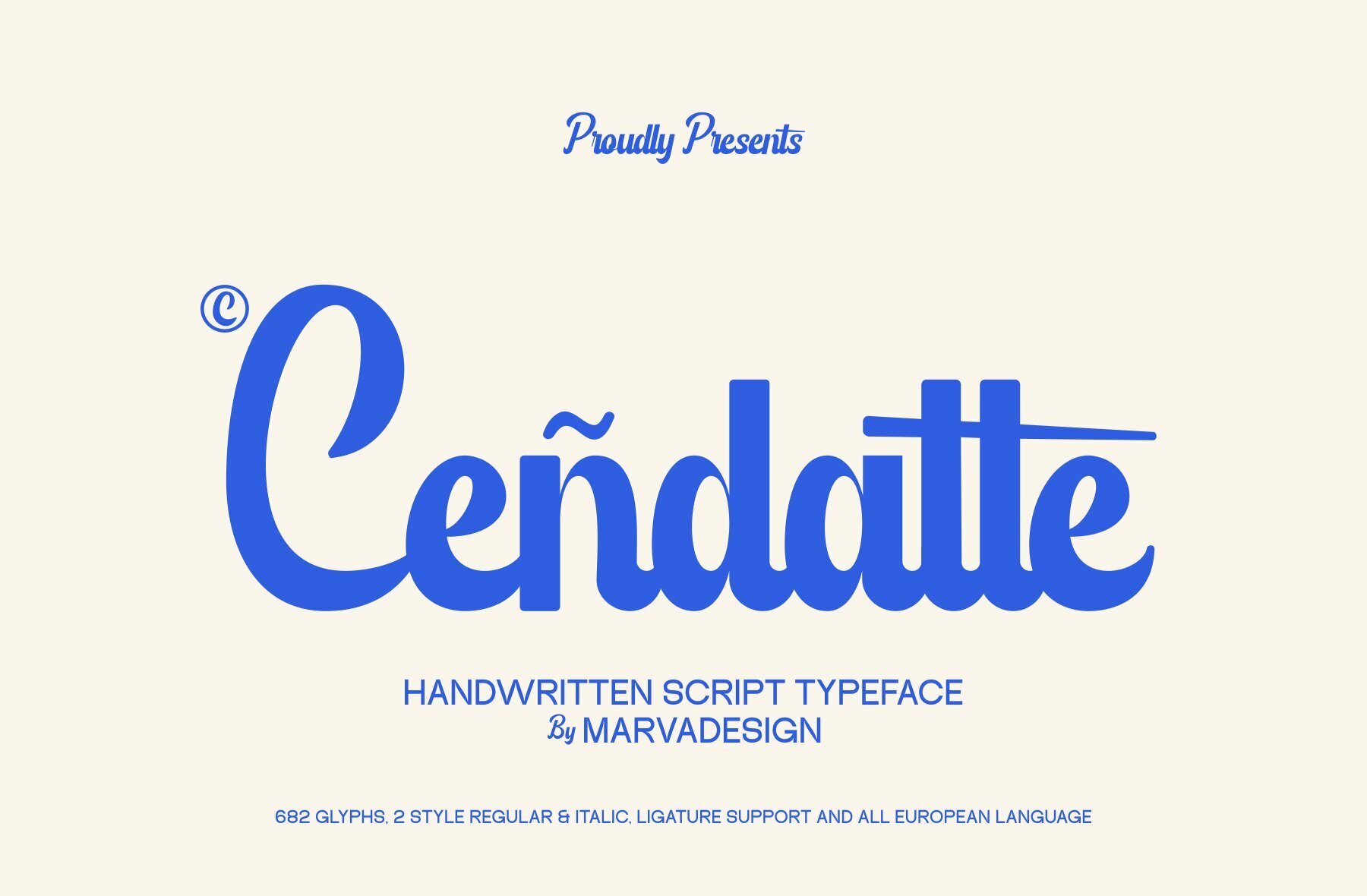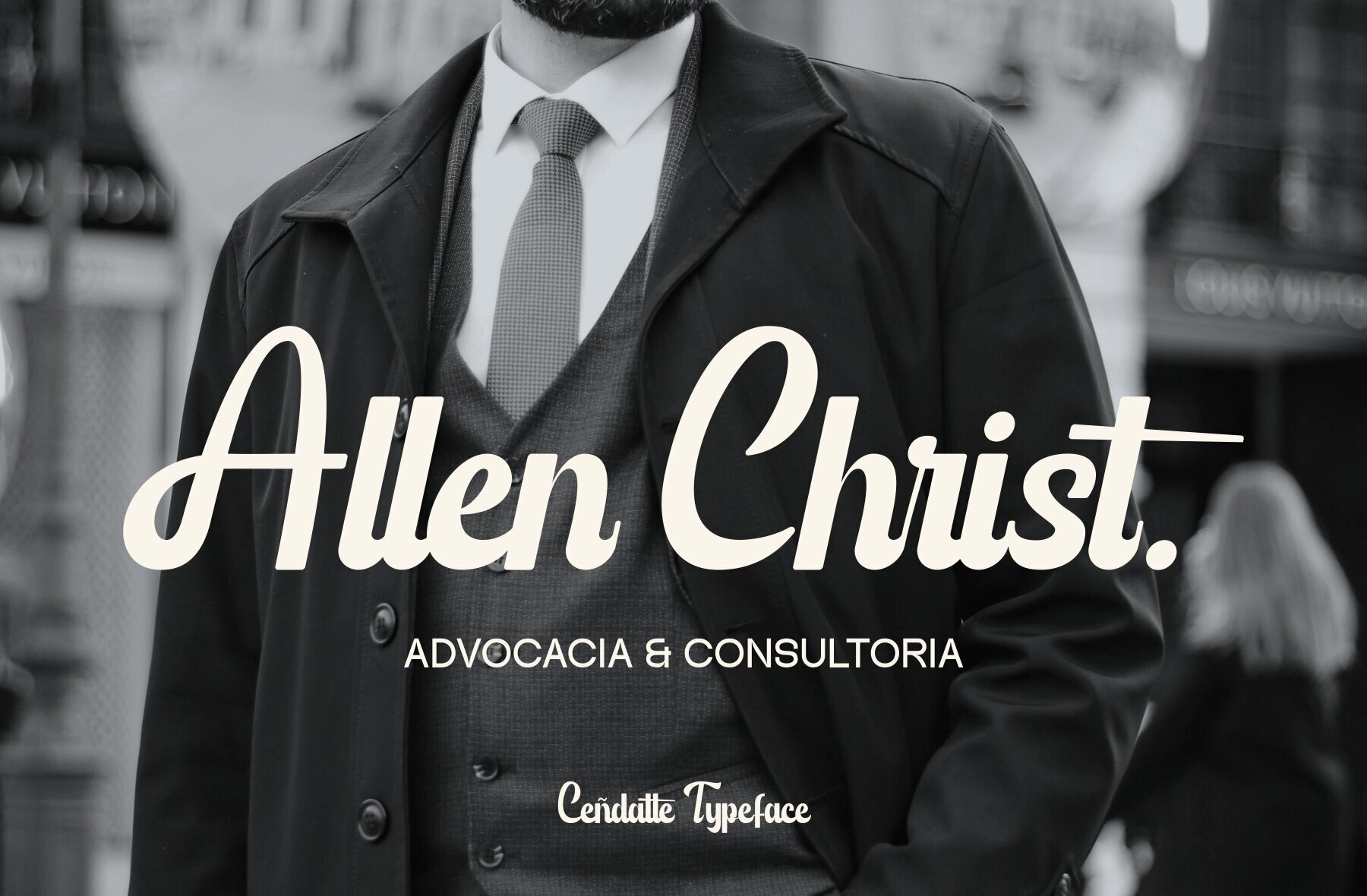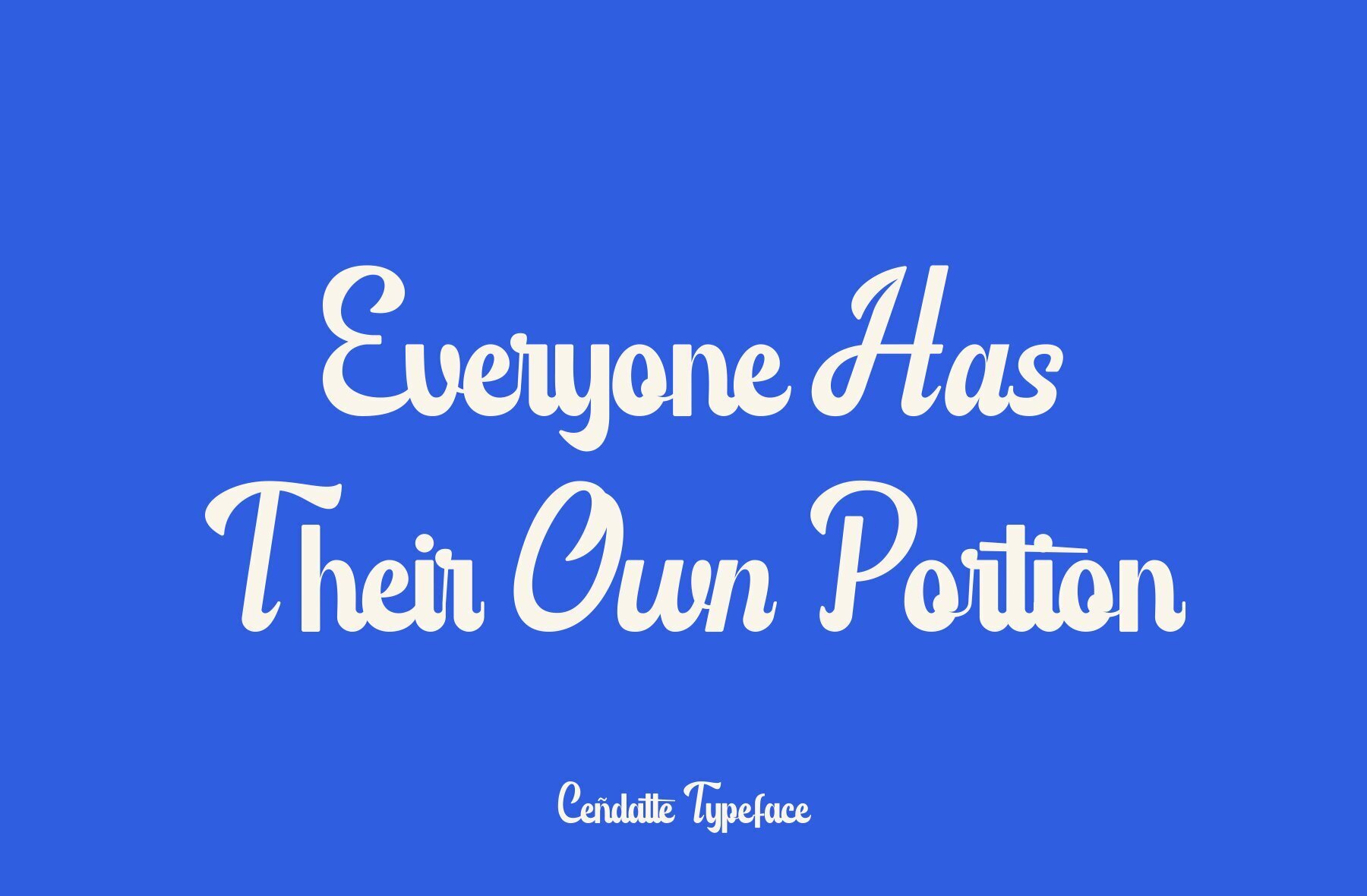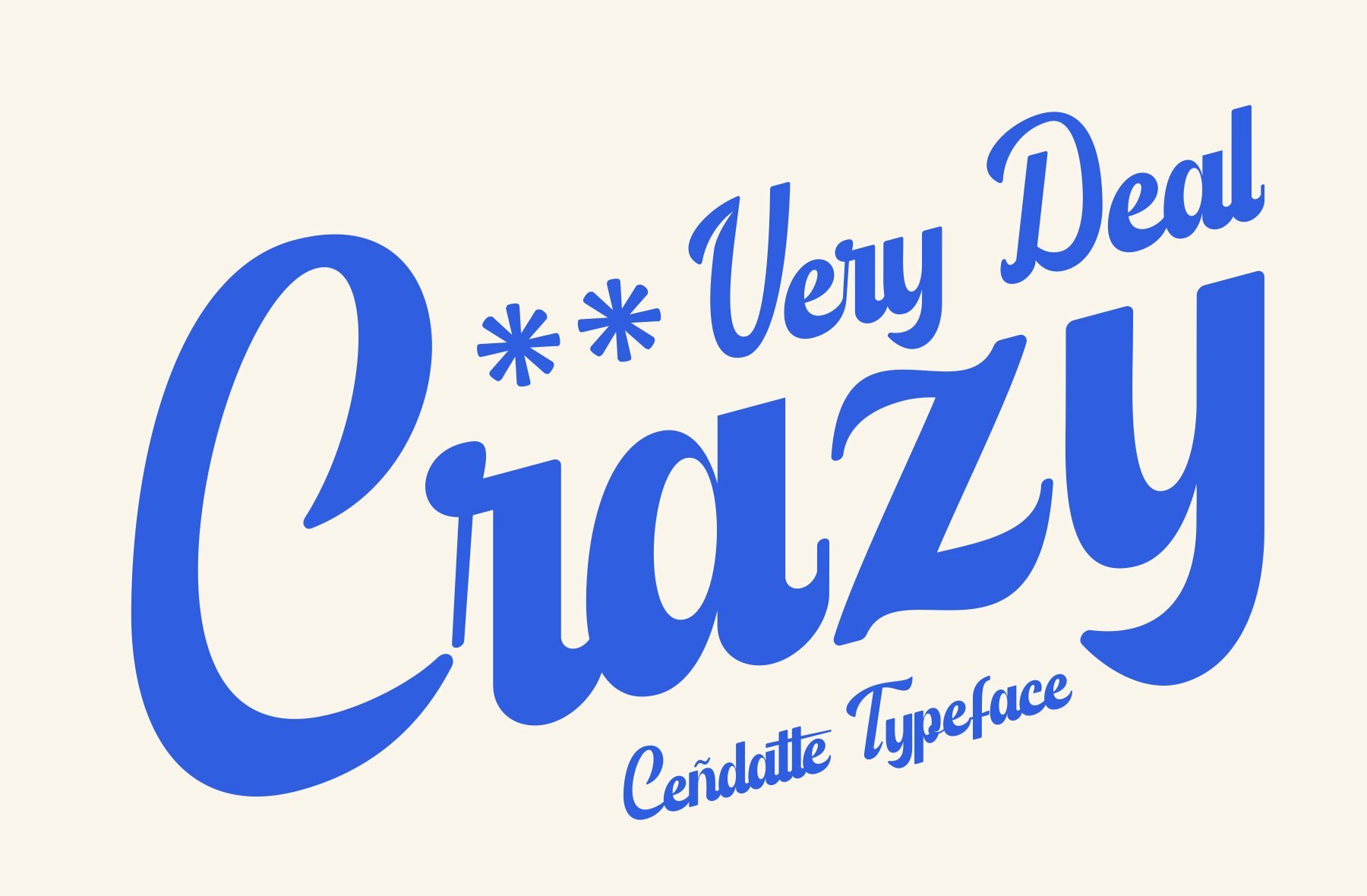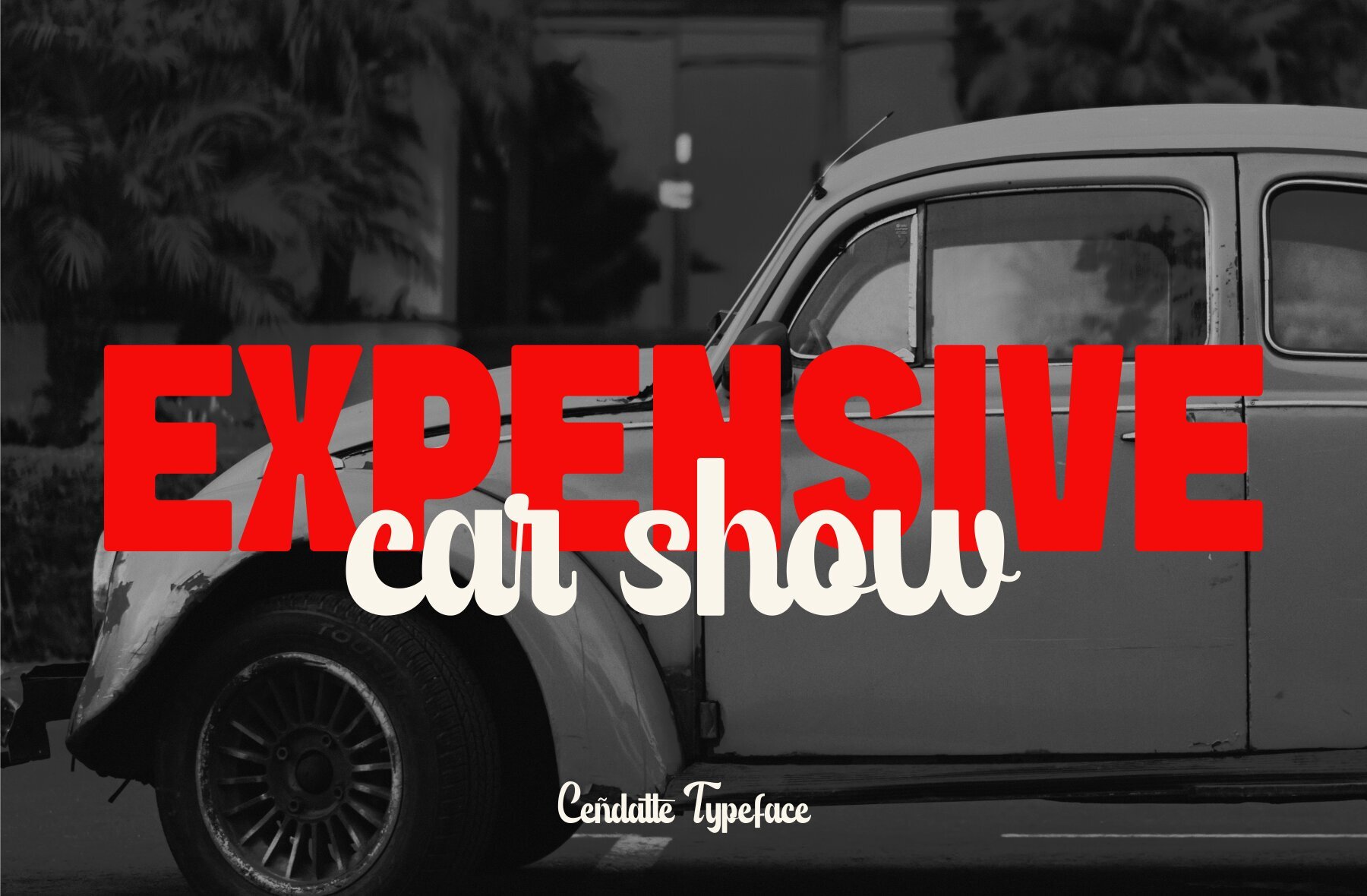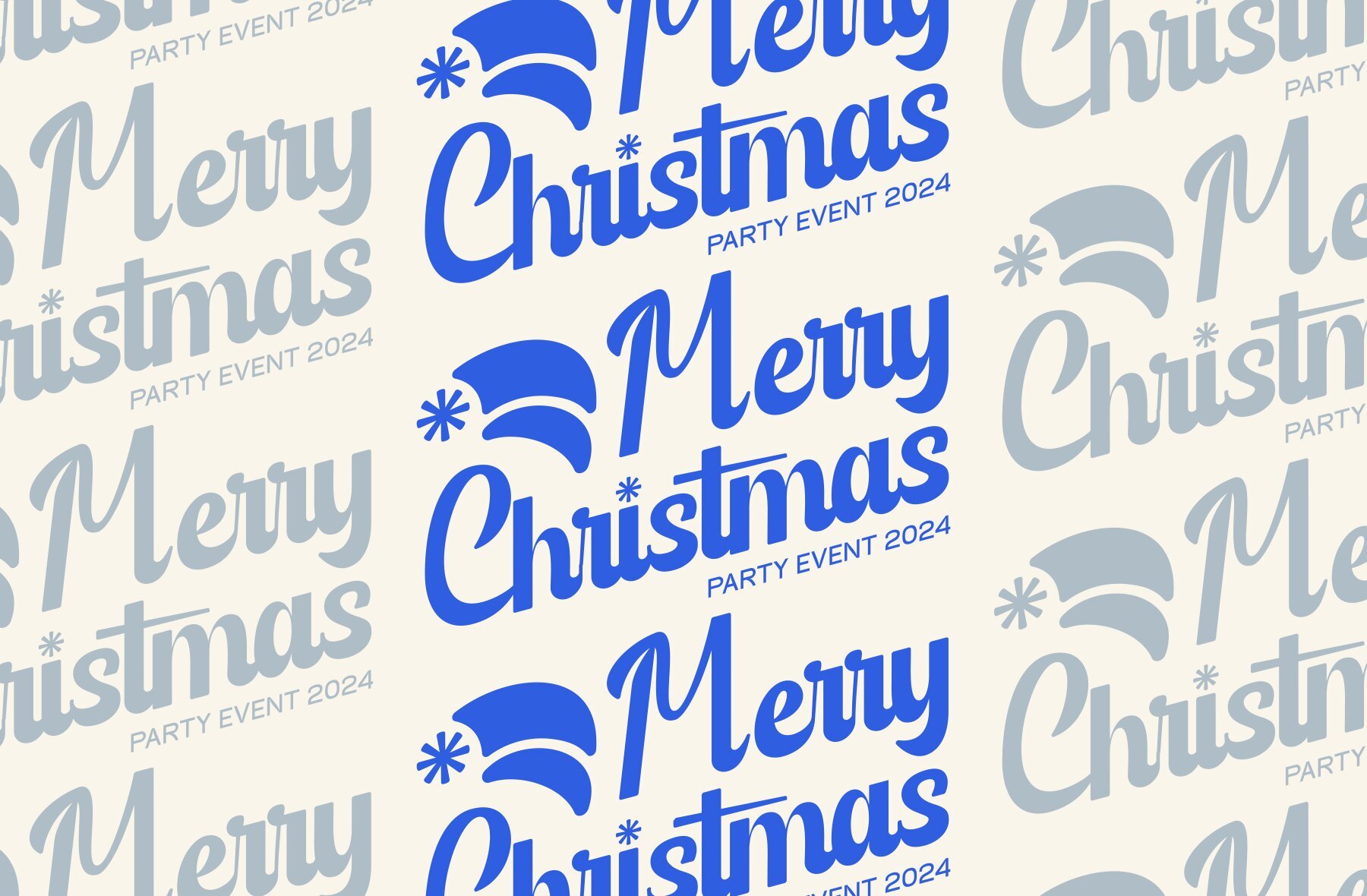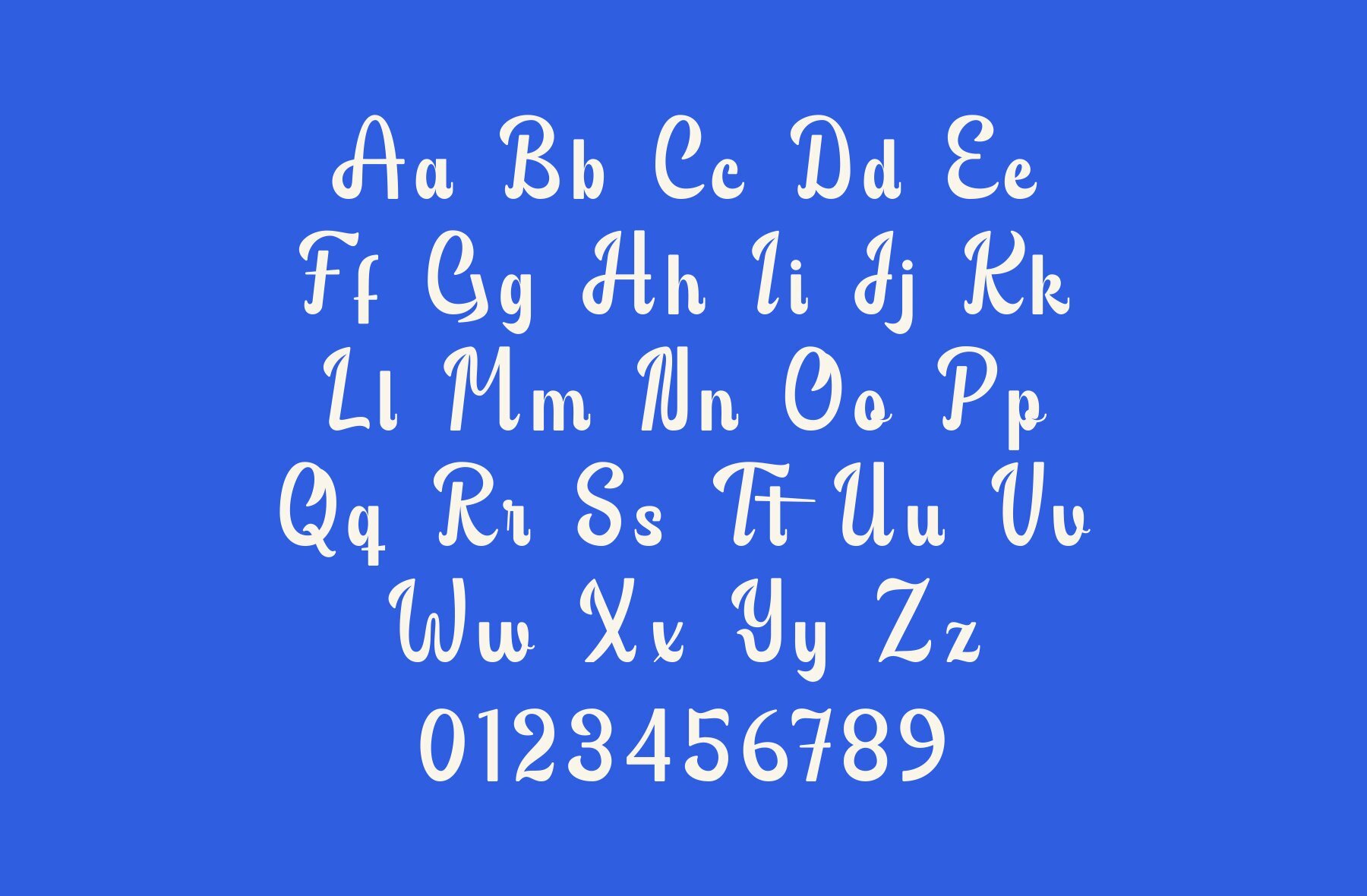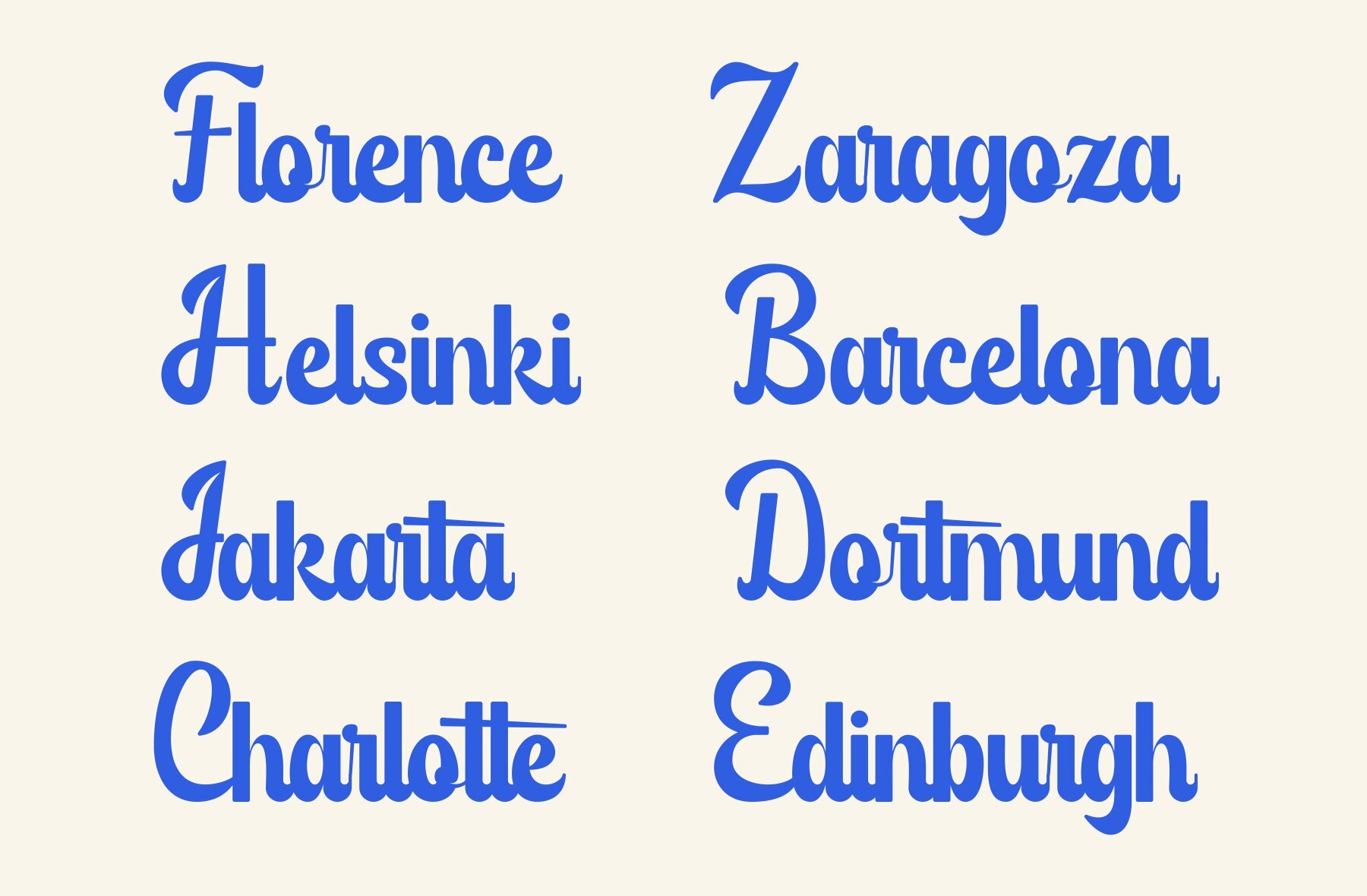
Cendatte Font
Cendatte
Cendatte Italic
Cendatte is a contemporary handwritten script font that combines the unique qualities of a display font with a friendly and sophisticated appearance. Its smooth, rounded edges create an inviting yet polished look, making it an excellent choice for impactful design projects. The font's bold and sturdy nature ensures a strong visual presence, suited for applications where attention-grabbing is key, such as in logos and headlines.
Available in both regular and italic styles, Cendatte offers versatility across a variety of design contexts. Its combination of boldness and handwritten charm makes it perfect for creating memorable branding elements. Despite its bold character, the font maintains excellent readability and elegance, making it ideal for projects that require a stylish yet clear approach.